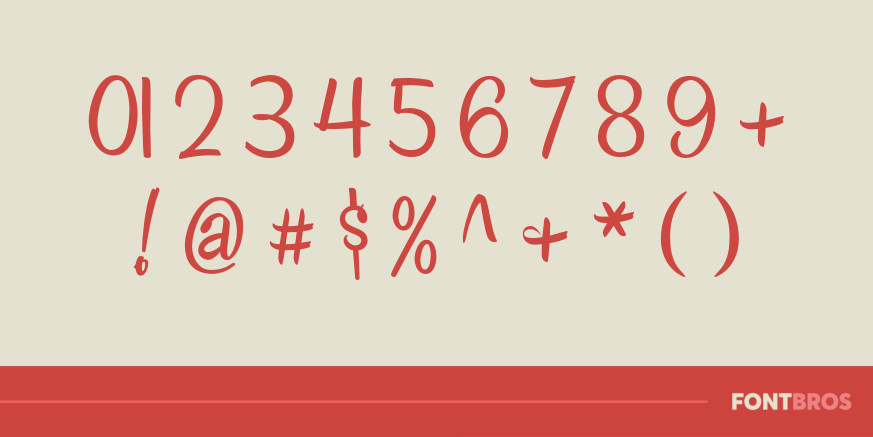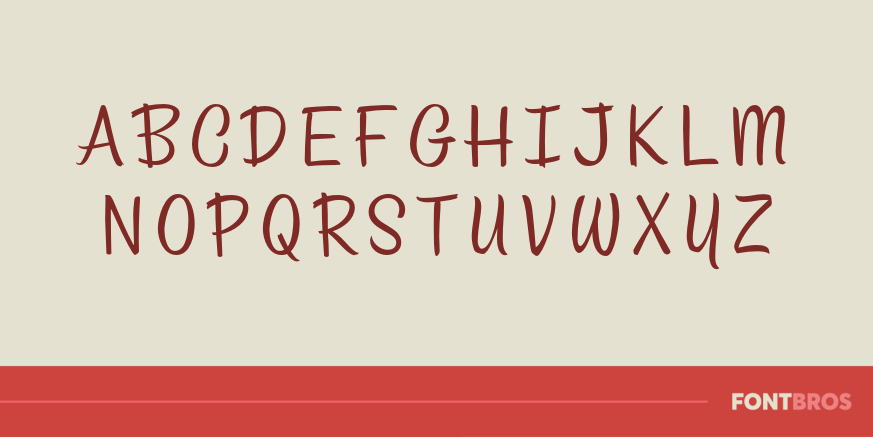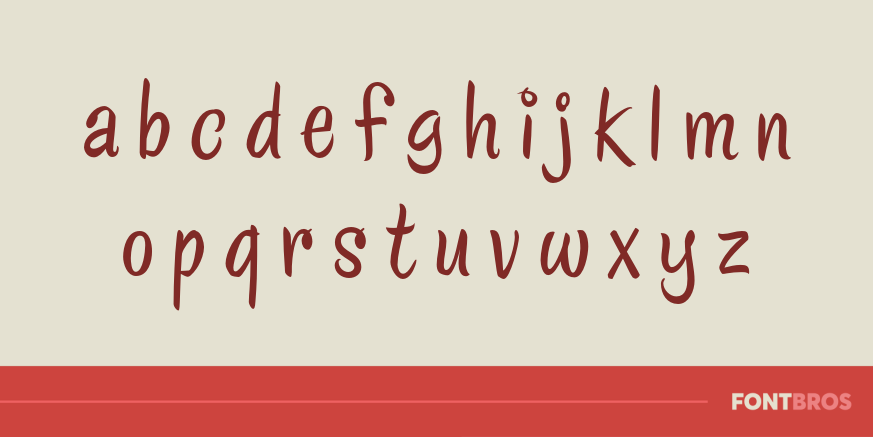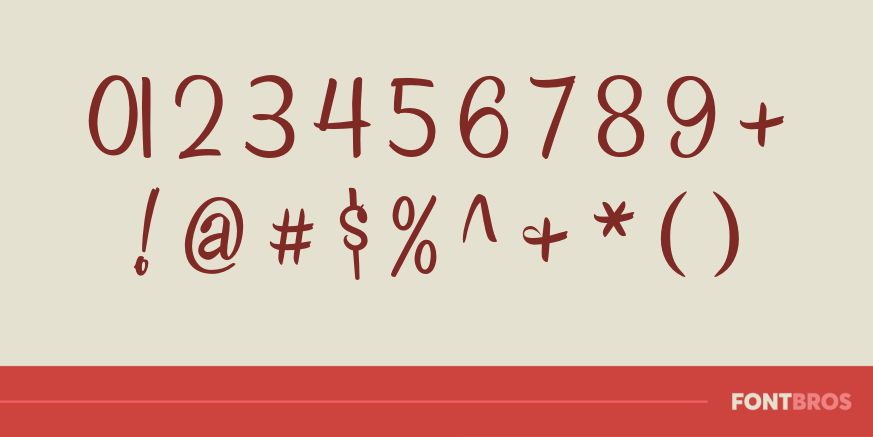
Chicken Basket
Font Family by Font Diner
Yee Haw! Get your hands on this Southern-fried brush script perfect for every occasion!
More About Chicken Basket
Chicken Basket is a Font Diner font product presented as a family, with one listed font named Chicken Basket. The supplied font record lists 258 glyphs.
The specimen images show a casual, hand-drawn lettering style with tall, slightly irregular capitals and loose, rounded lowercase forms. Its uneven strokes and playful shapes give it an informal display personality.
What is Chicken Basket used for?
Based on the visible specimen style, Chicken Basket is suited to display use where a casual hand-lettered tone is desired, such as titles, informal branding, signage, packaging-style graphics, and menu-inspired layouts.
• Casual hand-drawn lettering style visible in the specimen images
• Uppercase and lowercase alphabets are shown in the product images
What is Chicken Basket?
Chicken Basket is a Font Diner font product listed as a family.
What does Chicken Basket look like?
The specimen images show casual, hand-drawn lettering with irregular strokes and rounded lowercase forms.